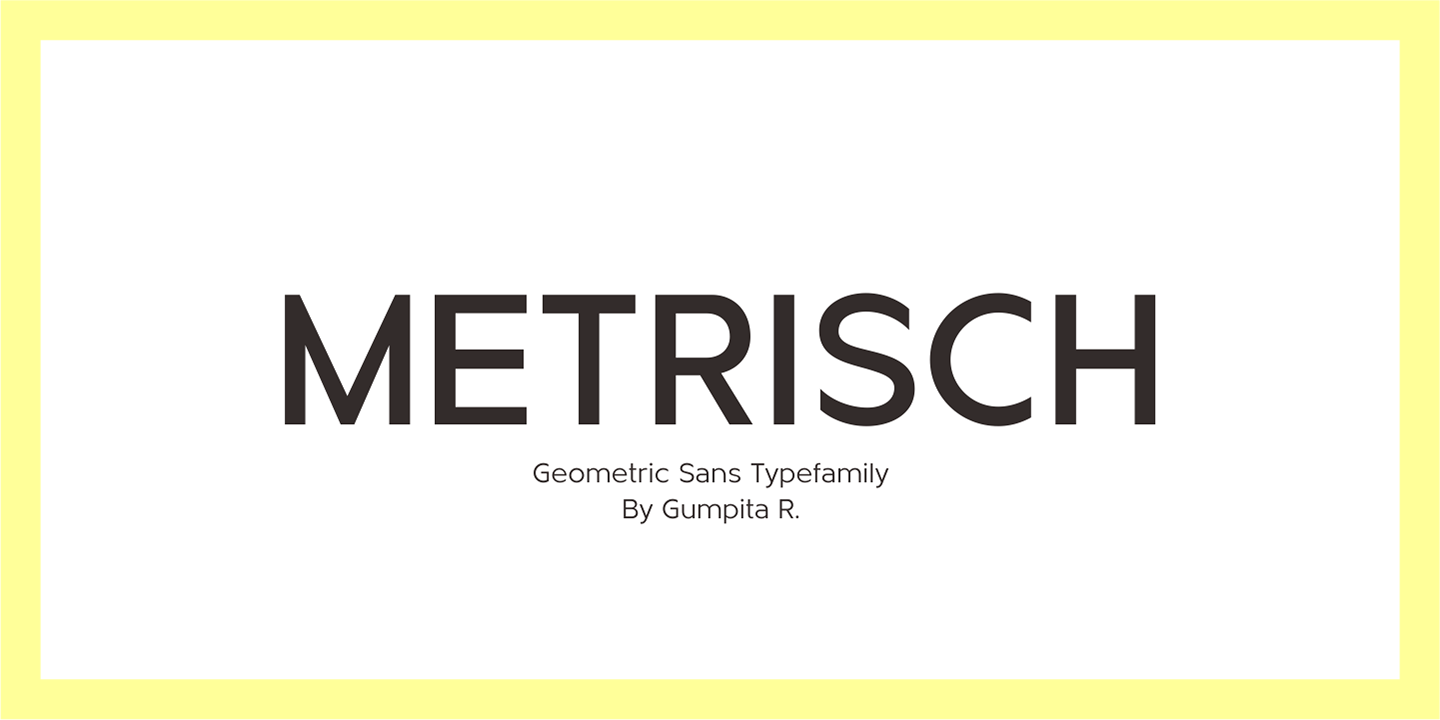
Metrisch Font is perfect for technical and scientific applications including engineering documentation, scientific publications, measurement instruments, laboratory equipment branding, precision manufacturing materials, research institution communications, technical manuals, and data visualization interfaces. This precise typeface brings mathematical accuracy and systematic clarity to projects requiring exact measurements and scientific credibility in technical environments.
What makes Metrisch Font exciting is its exceptional precision and mathematical harmony that reflects the systematic nature of scientific measurement. The font features geometrically perfect letterforms with consistent proportions based on mathematical principles that ensure optimal legibility for technical data and scientific notation. Its systematic character design incorporates modular construction and precise spacing that creates immediate trust and authority essential for scientific and engineering applications.
The Metrisch Font family includes carefully calibrated weight variations optimized for technical applications, from light weights for detailed specifications to bold variants for clear equipment labeling. The comprehensive family encompasses tabular figures, scientific symbols, and measurement units essential for technical documentation. Extended character sets support international scientific standards and mathematical notation commonly used in global research and engineering contexts.
Scientific organizations and engineering firms consistently choose Metrisch Font Free Download for projects requiring precise typography and technical credibility. Whether developing research publications, creating technical specifications, or designing measurement interfaces, this font delivers exceptional accuracy and scientific authority. Its unique combination of mathematical precision and practical functionality makes it an invaluable resource for professionals working in scientific research, engineering design, and technical communication fields that demand typography reflecting the highest standards of measurement accuracy and systematic scientific methodology.